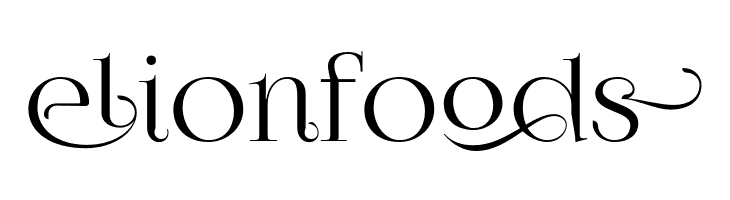
An elegant serif font with high contrast and sophisticated curves.
A bold, italicized modern typeface with smooth curves and a dynamic style.
A bold, condensed font with strong vertical emphasis and minimal stroke contrast.
A bold, distressed font with jagged, ink-splattered strokes for a grungy, rebellious look.
A bold slab serif font with strong, block-like serifs and consistent stroke weight.
A clean, modern sans-serif font with uniform strokes and geometric influences.
A wide-stroke, textured font with a vintage, hand-drawn feel.
A bold, angular font with a dynamic and geometric style.
A bold, geometric font with Art Deco influences, perfect for striking designs.
Designers love FoglihtenNo07calt, Montserrat Alternates Bold Italic, OPTIRadiantBold-Condensed, My Bleeding Scars and Street Slab - Mirror for their clean forms and broad use cases — from brand identities to landing pages and posters.